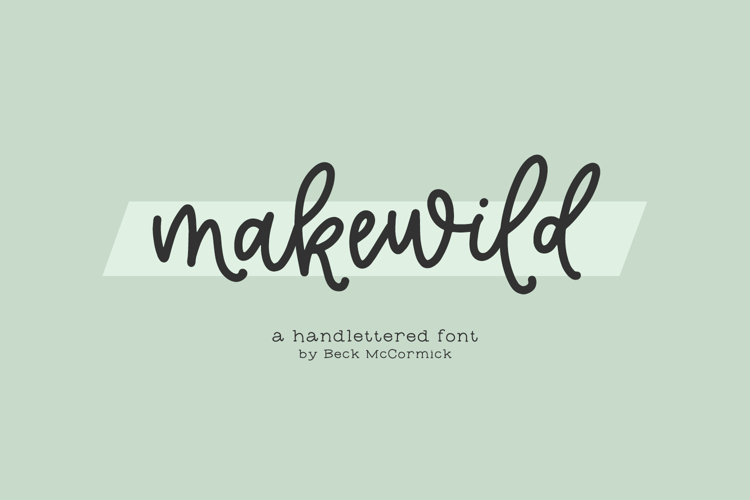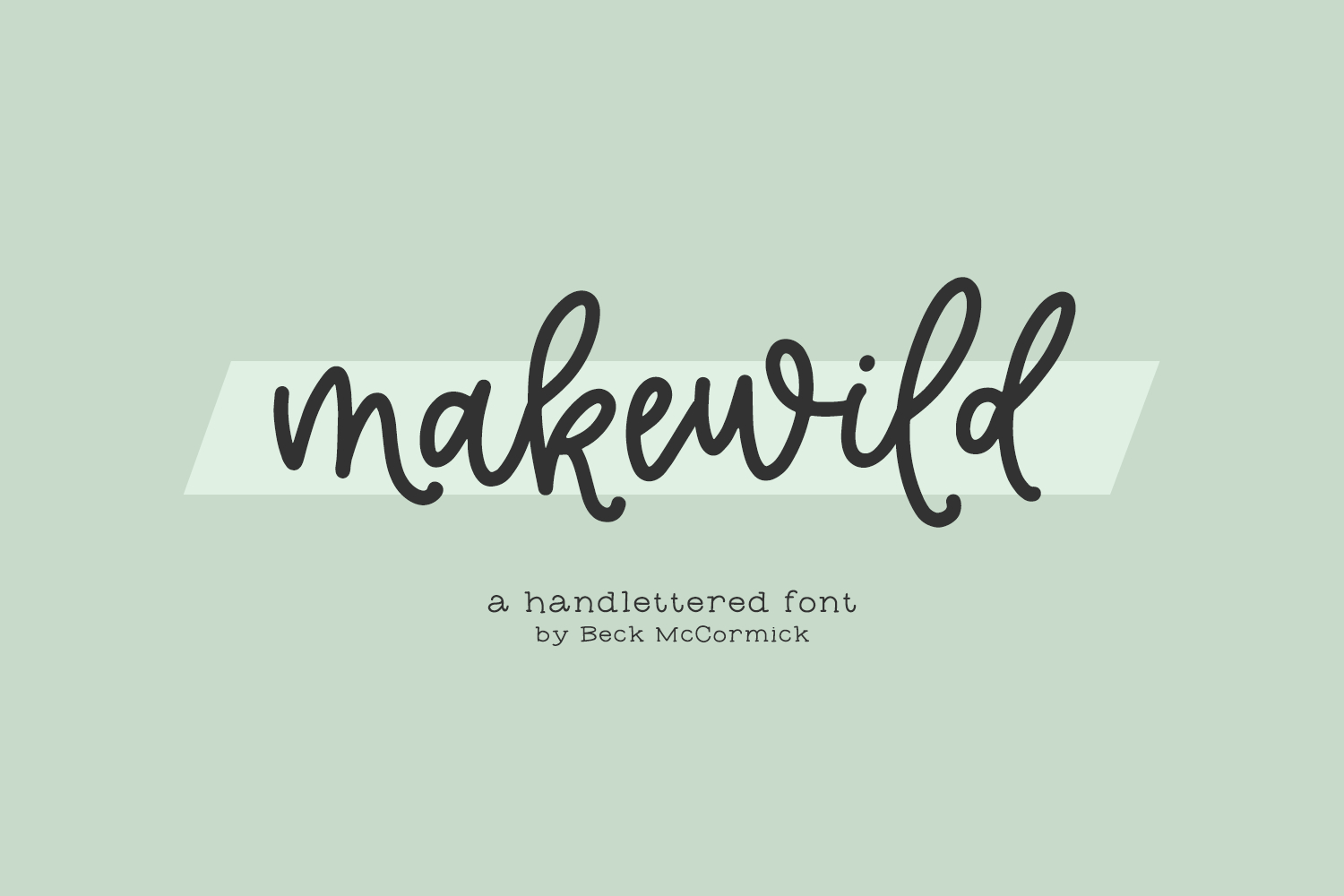
Makewild Script
Introducing Makewild, a monoline modern calligraphy font with alternates & ligatures. Makewild’s flourished characters add a sweet, feminine touch to your project.
Makewild includes:
- 26 alternates
- 17 ligatures - ad, dd, ed, hd, hg, id, ik, it, kd, md, nd, nk, od, td, tg, th, tt